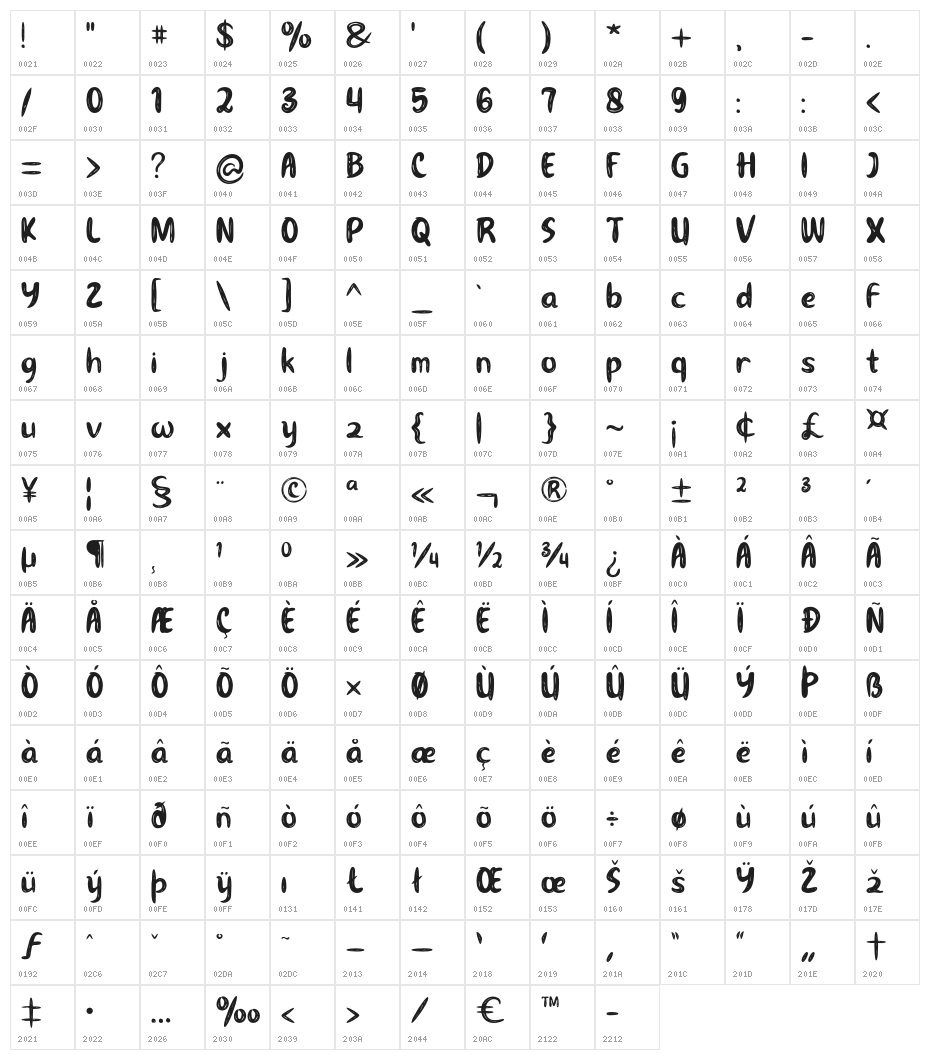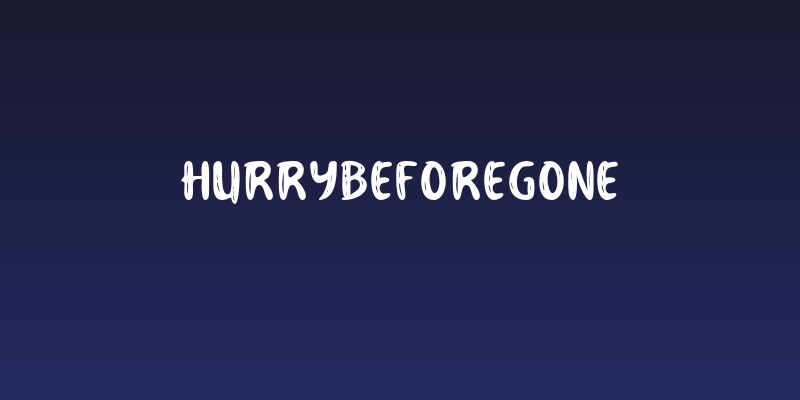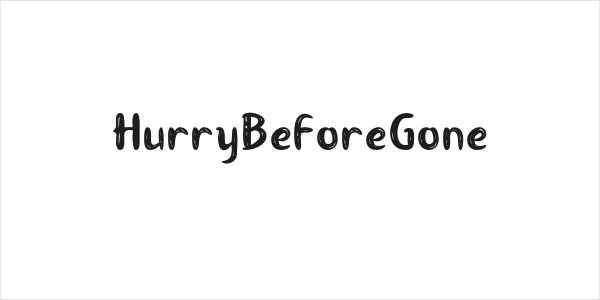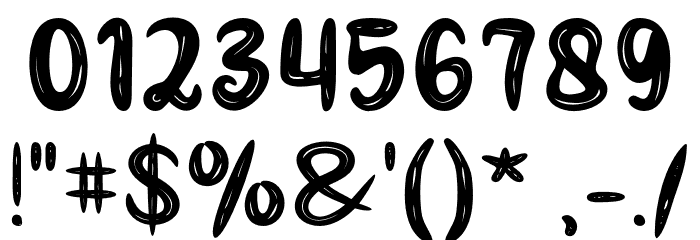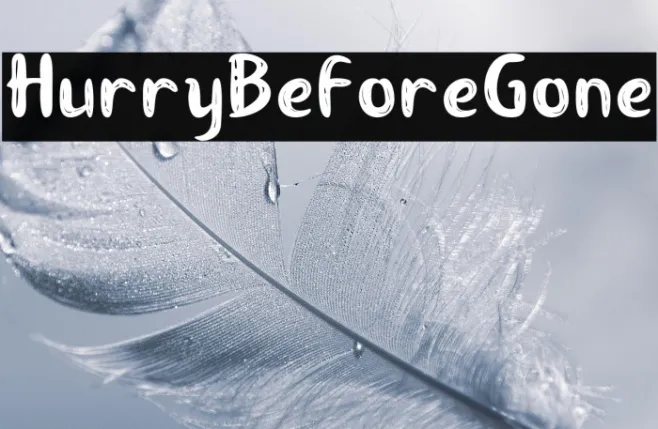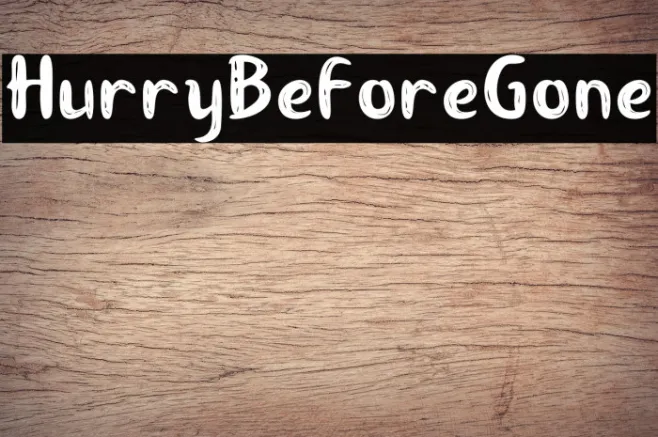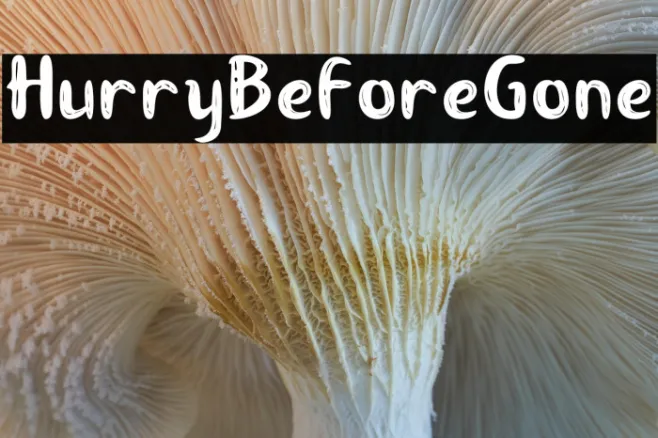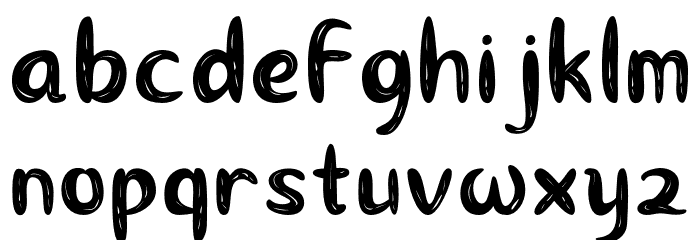
HurryBeforeGone Font
HurryBeforeGone Description
This font features a playful and energetic handwritten style, characterized by its bold and rounded letterforms. Each character exhibits a dynamic flow, with strokes that vary in thickness, creating a lively and informal appearance. The letters are slightly slanted, adding to the casual and approachable feel. The uppercase and lowercase letters maintain a consistent style, while the numerals and special characters integrate seamlessly, ensuring versatility across different uses. The font's unique personality makes it ideal for projects that require a touch of whimsy and creativity.